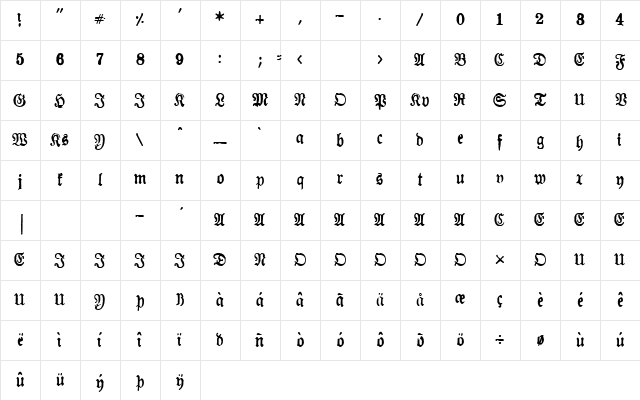
Almanacques Regular
Copyright: (C) SDFonts, 2001. [http://jump.to/SDFonts]. It's the longest day of the year as I am creating this piece of Finnish history from the almanack dated 1927.
Foundry: SDFonts
Designer: ritzy
Design Context for Almanacques
Almanacques is a composed and adaptable typeface that performs quietly and consistently across a wide range of design contexts.